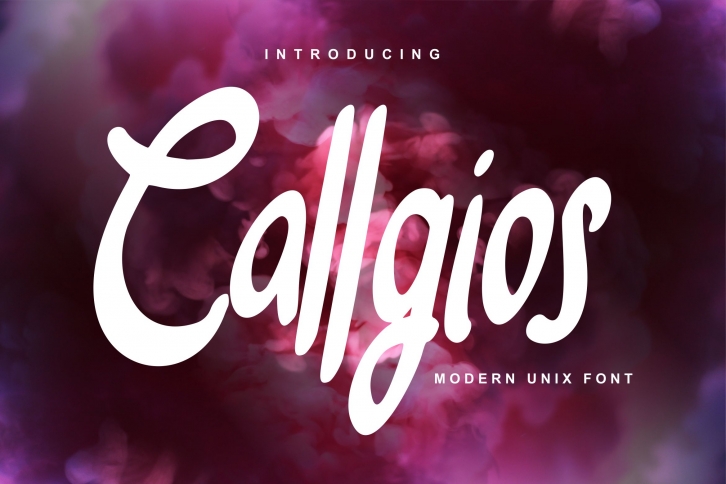
Callgios is a beautiful font that was designed by Vunira. It's a great choice for designers and creatives who need such a font. It was released on March 1, 2020 and the file size is 12.23 MB. Callgios may give a more youthful, expressive and casual look to your project. It is a very beautiful, refined, elegant, and high-quality font.